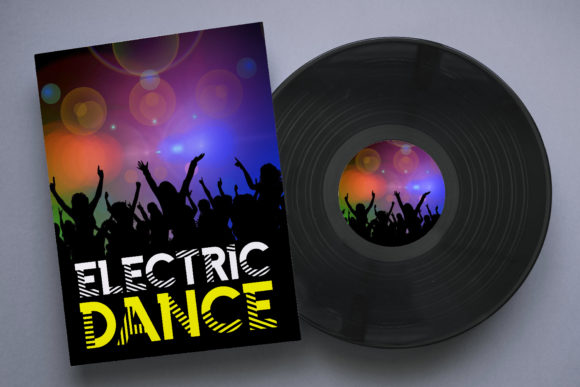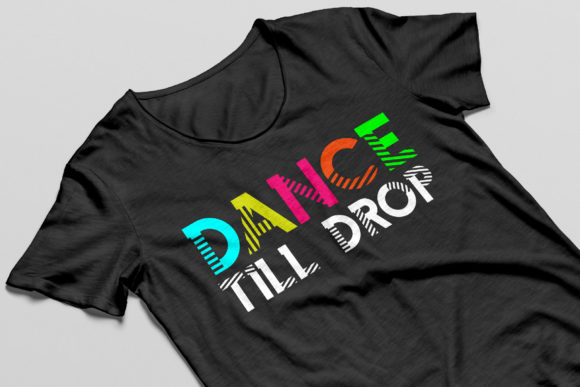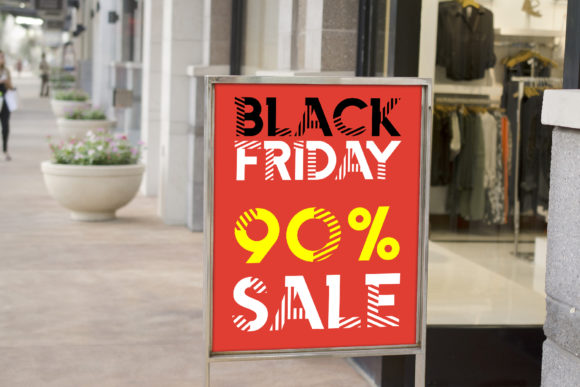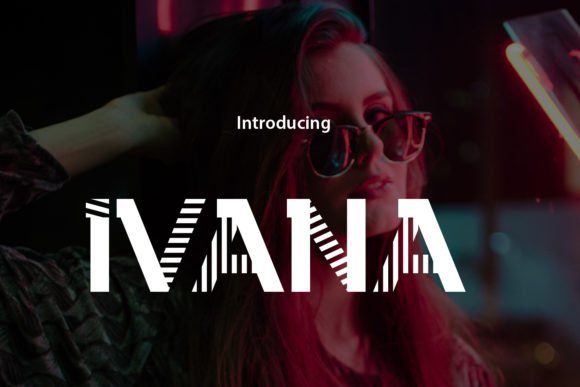
Introduction to Ivana Font
Ivana is a cool and bold display font that will easily make any design idea stand out.
Why Choose Ivana Font?
Ivana Font offers exceptional quality and versatility, making it a valuable addition to your design toolkit. Whether you’re creating for personal projects or commercial use, Ivana Font delivers professional results.